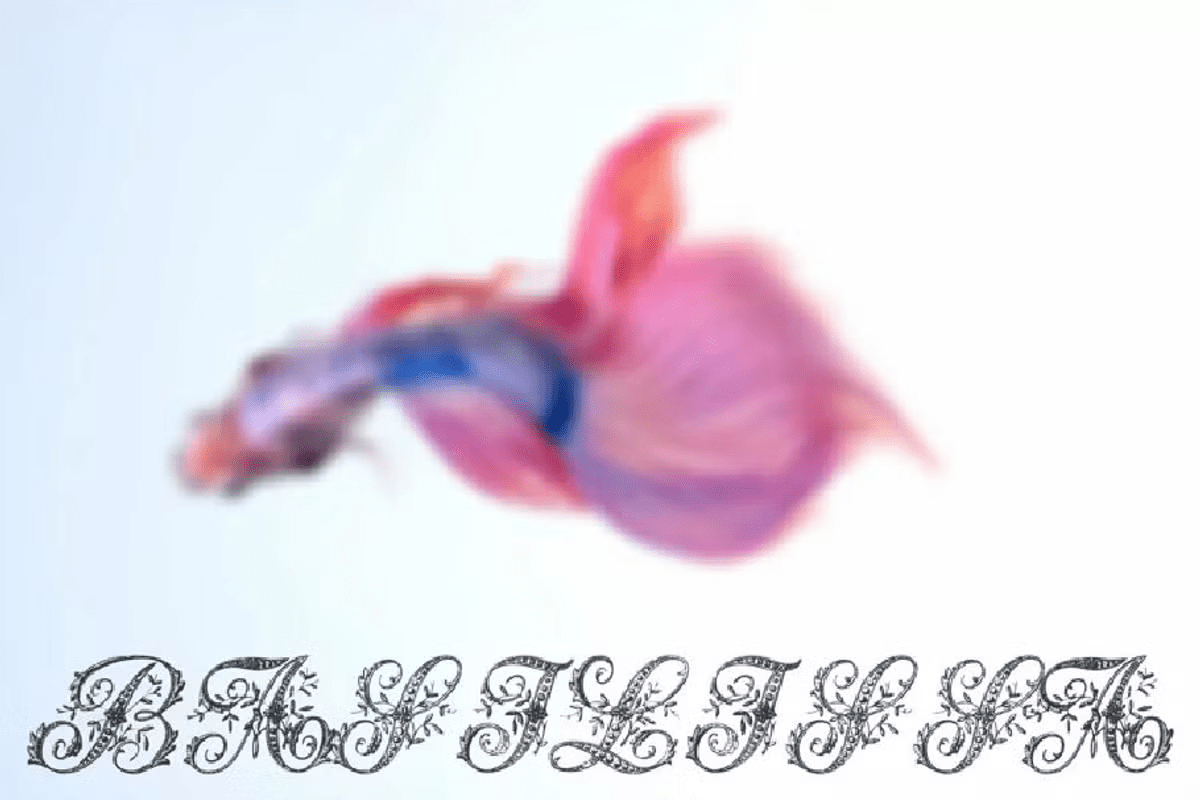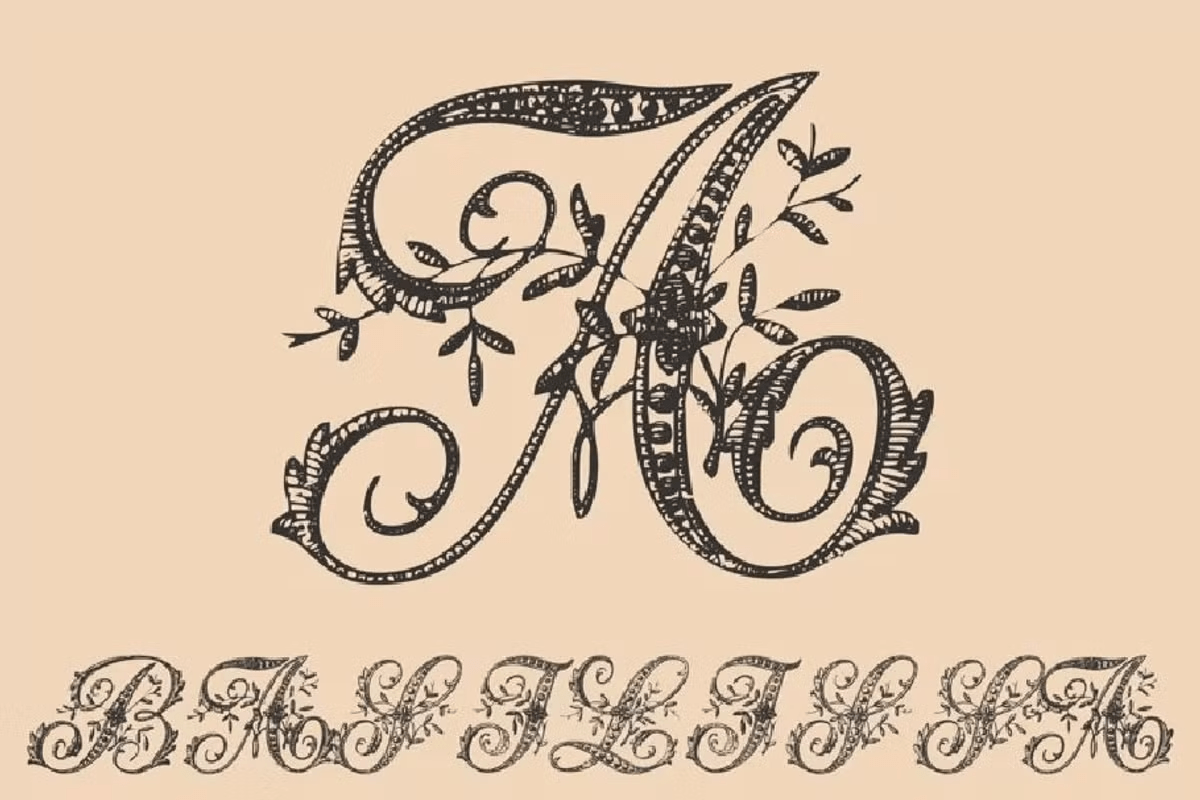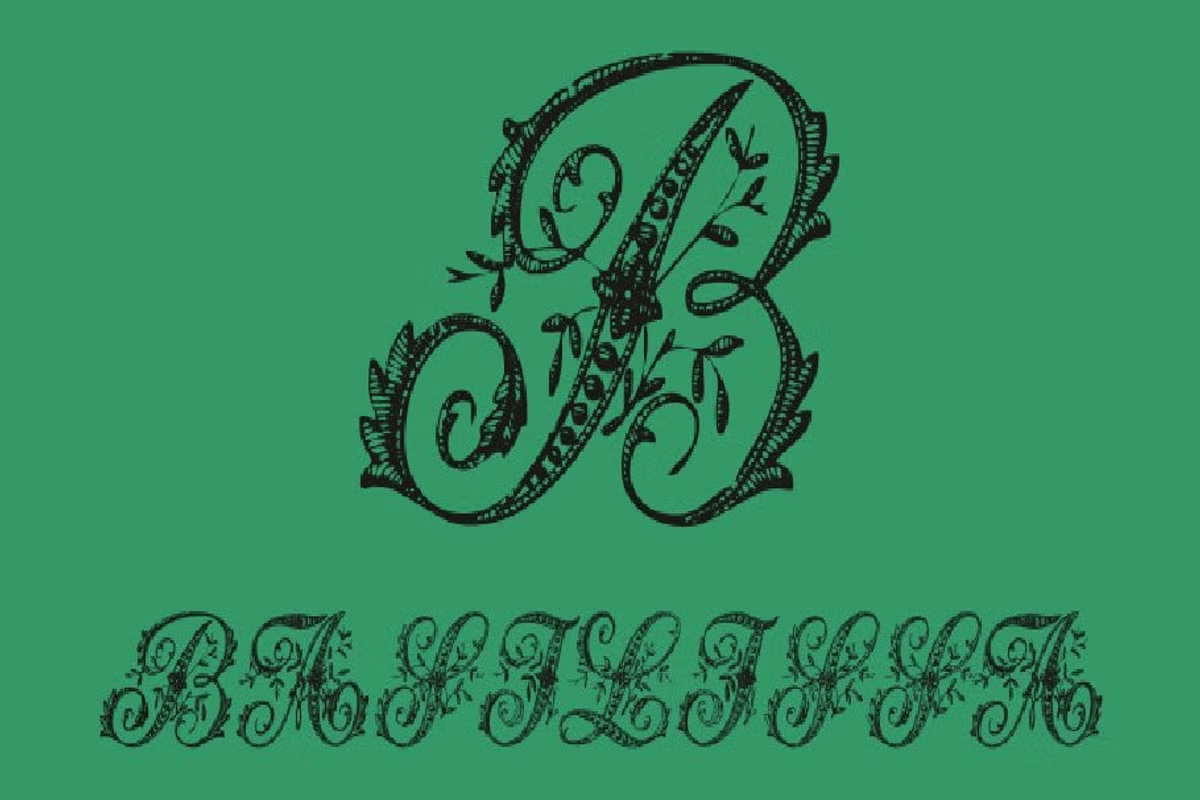
HomeFont BrosHistoricalBasilissa HistoricalRetro (1936-1965)Special EffectMonograms Basilissa FacebookXPinterestWhatsApp 1 of 3 About Basilissa is a flowery caps font  DOWNLOAD ON FONT BROSThis font is sold and delivered by Font Bros. Font Canyon may earn a commission if you buy through this link. People also explored Spasibo Font Story Line Font Goteru Font Gv. Time Font Paisley Font Cranberry Font Old Oak Tree Font Headlines Deluxe Font Soft Biscotti 236 0 TagsBasilissa FontRUKID1VT1M Previous articleCherry Cream Soda ProNext articleDever LEAVE A REPLY Cancel reply Comment: Please enter your comment! Name:* Please enter your name here Email:* You have entered an incorrect email address! Please enter your email address here Website: Save my name, email, and website in this browser for the next time I comment. Personal Use Free Fifteenth Century Personal Use Free Read more about this font White Rose Personal Use Free Read more about this font Pouline Personal Use Free Read more about this font Kaysan Personal Use Free Read more about this font BLOG Free vs Paid Fonts: Why Investing in Premium Fonts Is Worth It Free vs Paid Fonts: Why Premium Fonts Are Worth It in 2025 The debate of free vs paid fonts continues in the design world. While... Free Fonts Risk: Why Free Fonts Can Be Dangerous for Designers 5 Fonts That Will Dominate Design Trends in 2026 Exploring Font Trends